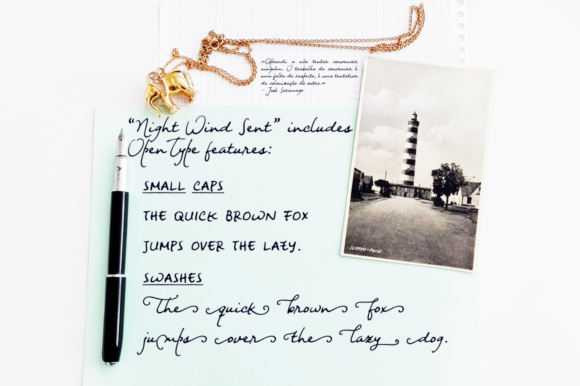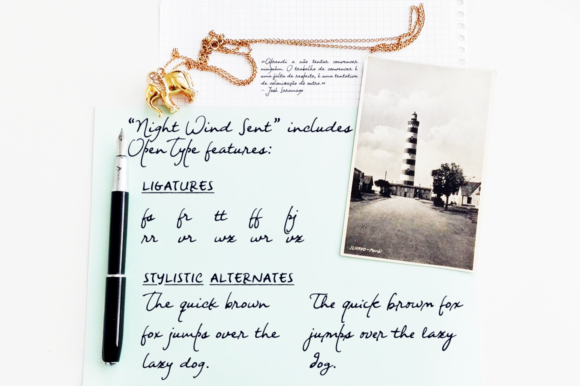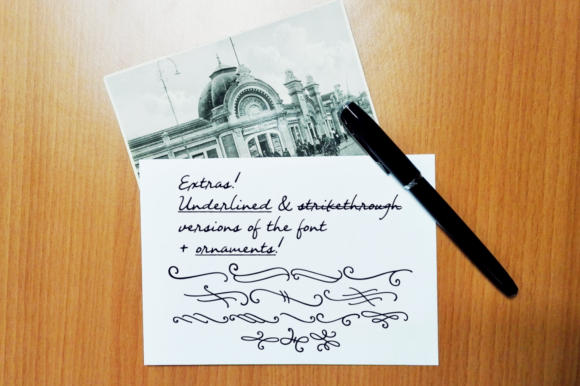
Night Wind Sent Font
About Night Wind Sent Font
Night Wind Sent is an elegant handwritten font, with ligatures, stylistic alternates, small caps, and swashes. It looks lovely on wedding invitations, thank you cards, quotes, greeting cards, logos, business cards and every other design which needs a customized touch.